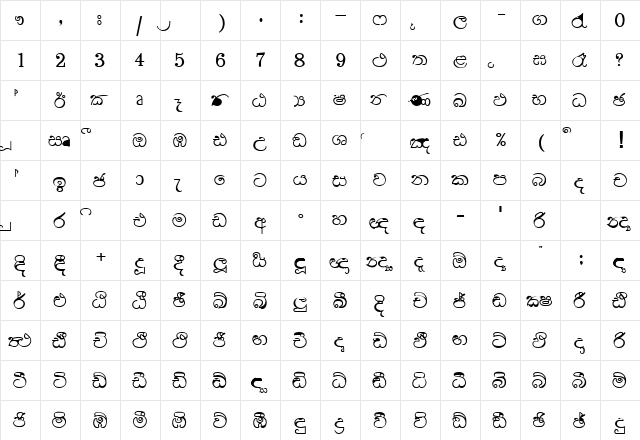
DL-Manel-bold. Normal
Design Context for DL-Manel-bold. Typeface
DL-Manel-bold. takes a measured approach to typography — its balanced proportions and neutral character make it a reliable workhorse for both digital and print work. The heavy weight commands attention and anchors typographic hierarchies.